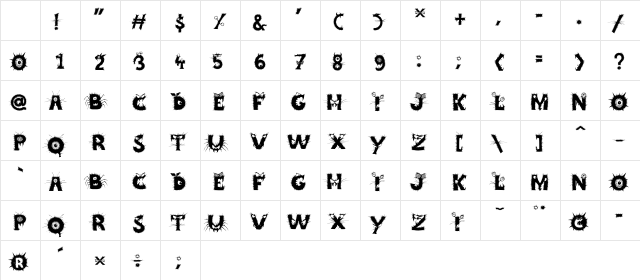
Complete CCCreepyCrawly Regular glyph index. Displaying only characters natively supported by CCCreepyCrawly Regular font.
CCCreepyCrawly carries an unsettling edge - its distorted letterforms are built to unsettle, perfectly suited to horror, Halloween, and dark creative work.
Font Pairing: Pair with a clean neutral sans-serif for body copy to let CCCreepyCrawly's character lead without overwhelming the composition.
Pro Tip: Use CCCreepyCrawly at larger display sizes for maximum impact. Consider generous tracking to let the disturbing character of each letterform breathe.